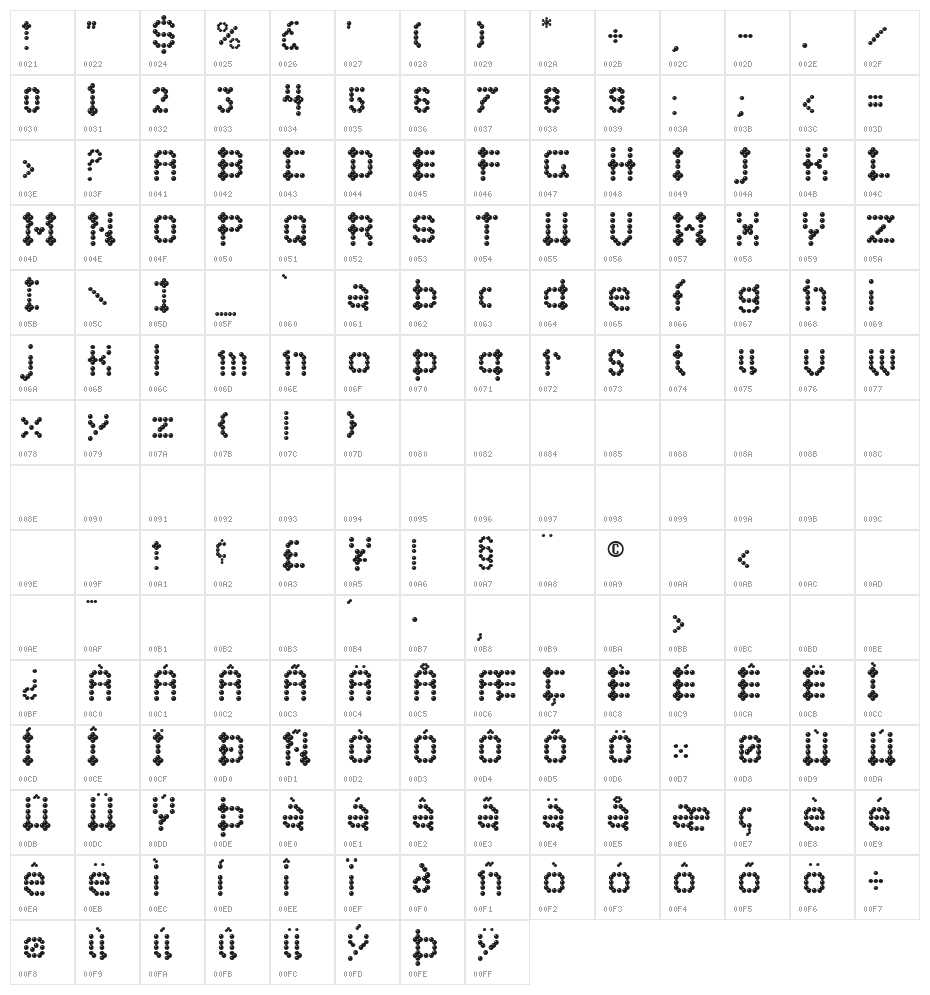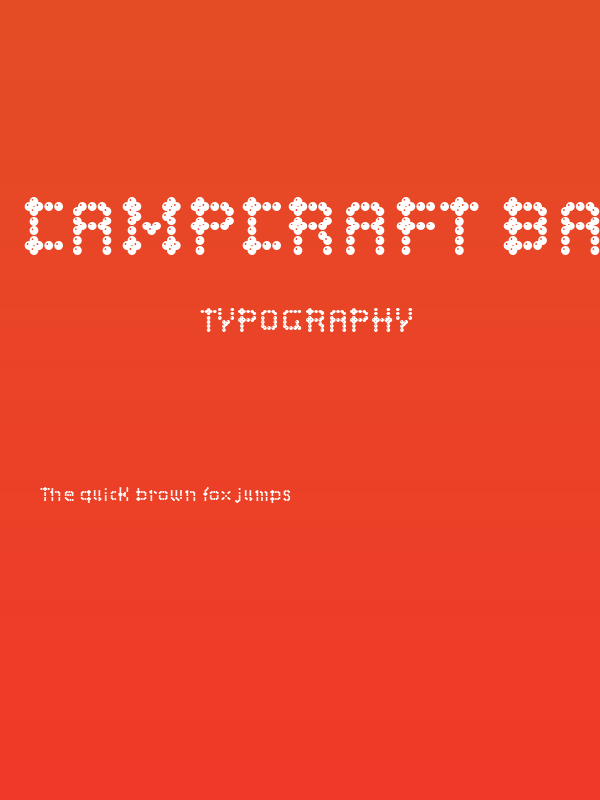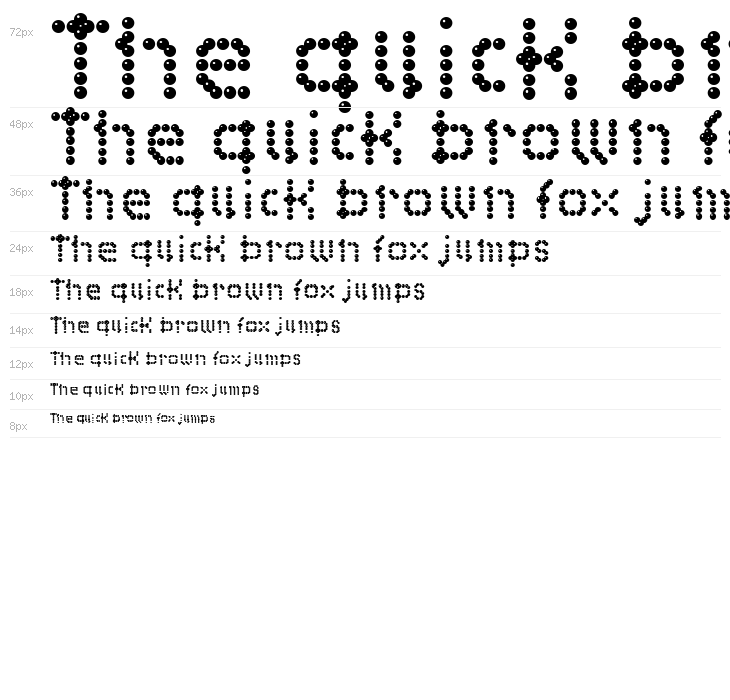
Campcraft Basic Font
Campcraft Basic Description
This font features a unique and playful design, composed of small, circular dots that form each character. The letters and numbers are constructed with a consistent pattern of dots, giving it a pixelated and digital appearance. The style is reminiscent of retro video games or digital displays, making it stand out with its distinctive texture. The font maintains uniformity across uppercase, lowercase, and numerical characters, providing a cohesive look. The special characters are also crafted with the same dotted style, ensuring consistency throughout. This font is ideal for projects that require a fun, tech-inspired aesthetic.
| Overall Style | Retro, Digital, Playful |
| Use Case | Logos, Posters, Digital Art |
| Proposed Projects | Ideal for video game graphics, tech-themed posters, digital art projects, and creative branding. |